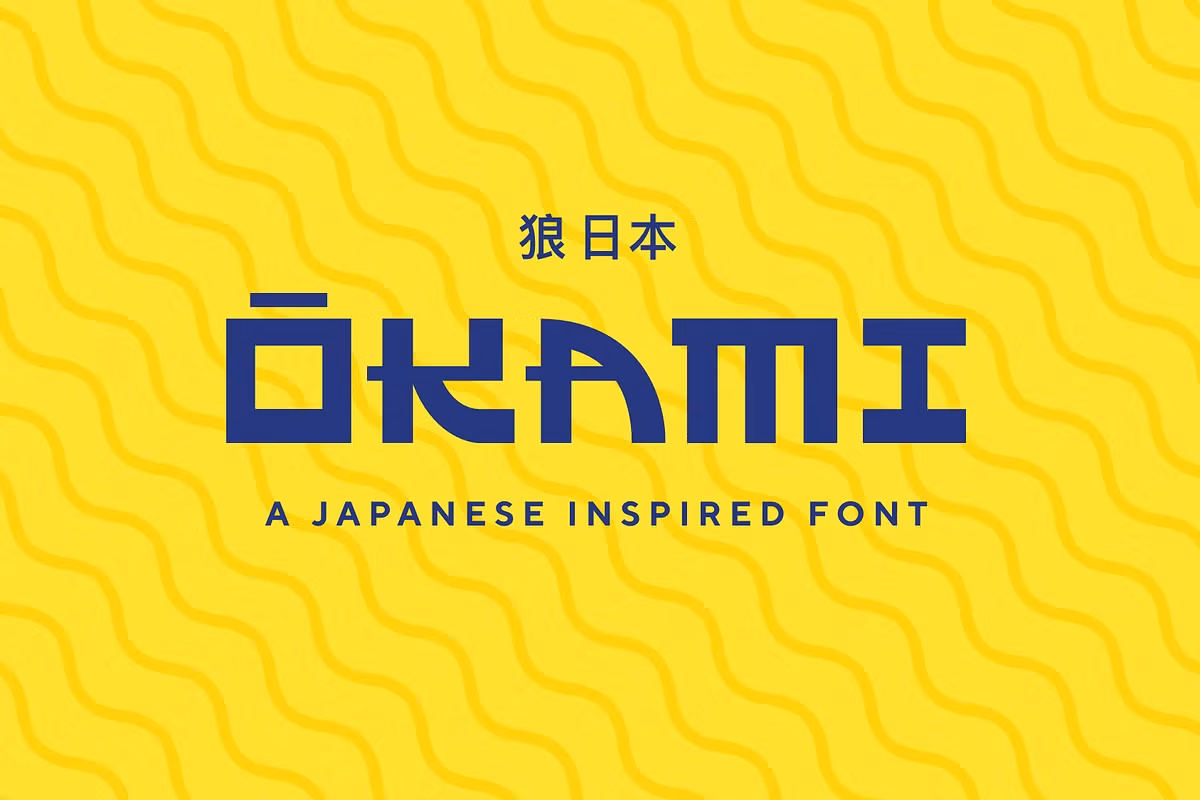
OKAMI | Display Font Free Download
Unleash the spirit of design with the OKAMI | Display Font Free Download — a bold and edgy typeface inspired by Japanese aesthetics and modern street culture. OKAMI is perfect for gaming logos, anime posters, tech branding, apparel design, and anything that needs a fierce, high-impact visual presence.
With sharp lines, strong geometry, and a rebellious soul, this display font captures attention instantly. Whether you're crafting a cyberpunk title screen or a bold merchandise line, OKAMI brings fearless energy and unmistakable identity to your typography.